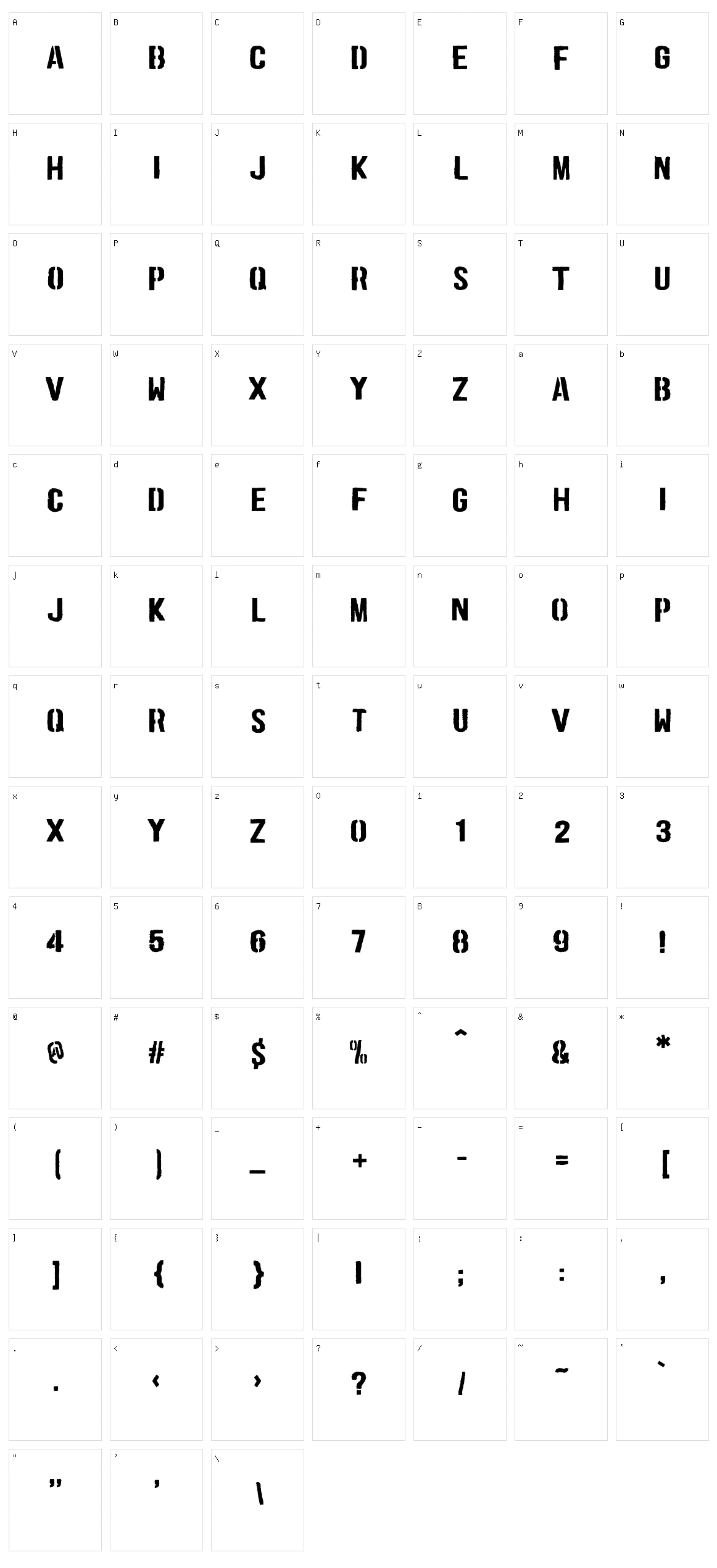
The free font zai Coffee Sackful Stamp is carefully designed by Tomasz Skowroński, showcasing a thoughtful balance of creativity and usability and falls under the Stencil font style. When you download the ZIP file, it contains only 457.75 KB of font files, making it lightweight and quick to download. Please review the license details below to understand permitted usage and distribution rights. If license information is not available, we recommend using this font for personal projects only or contacting the author directly for commercial usage permissions.